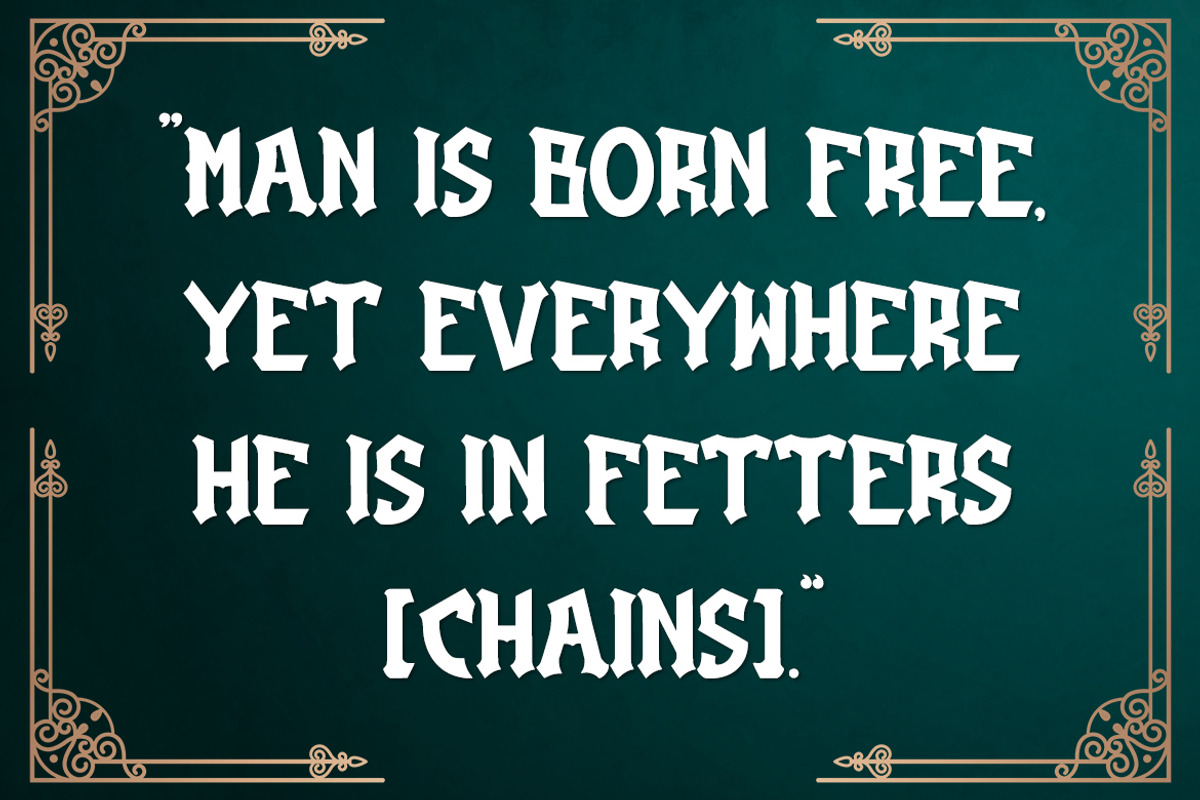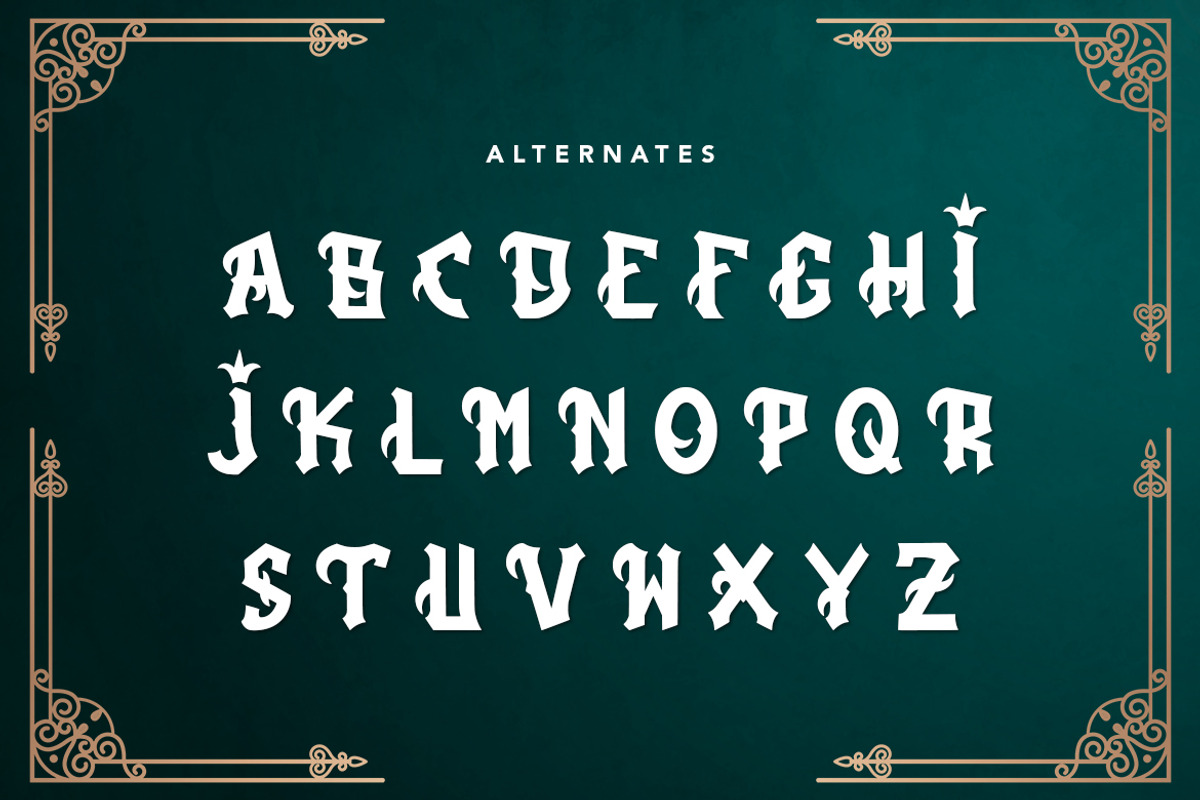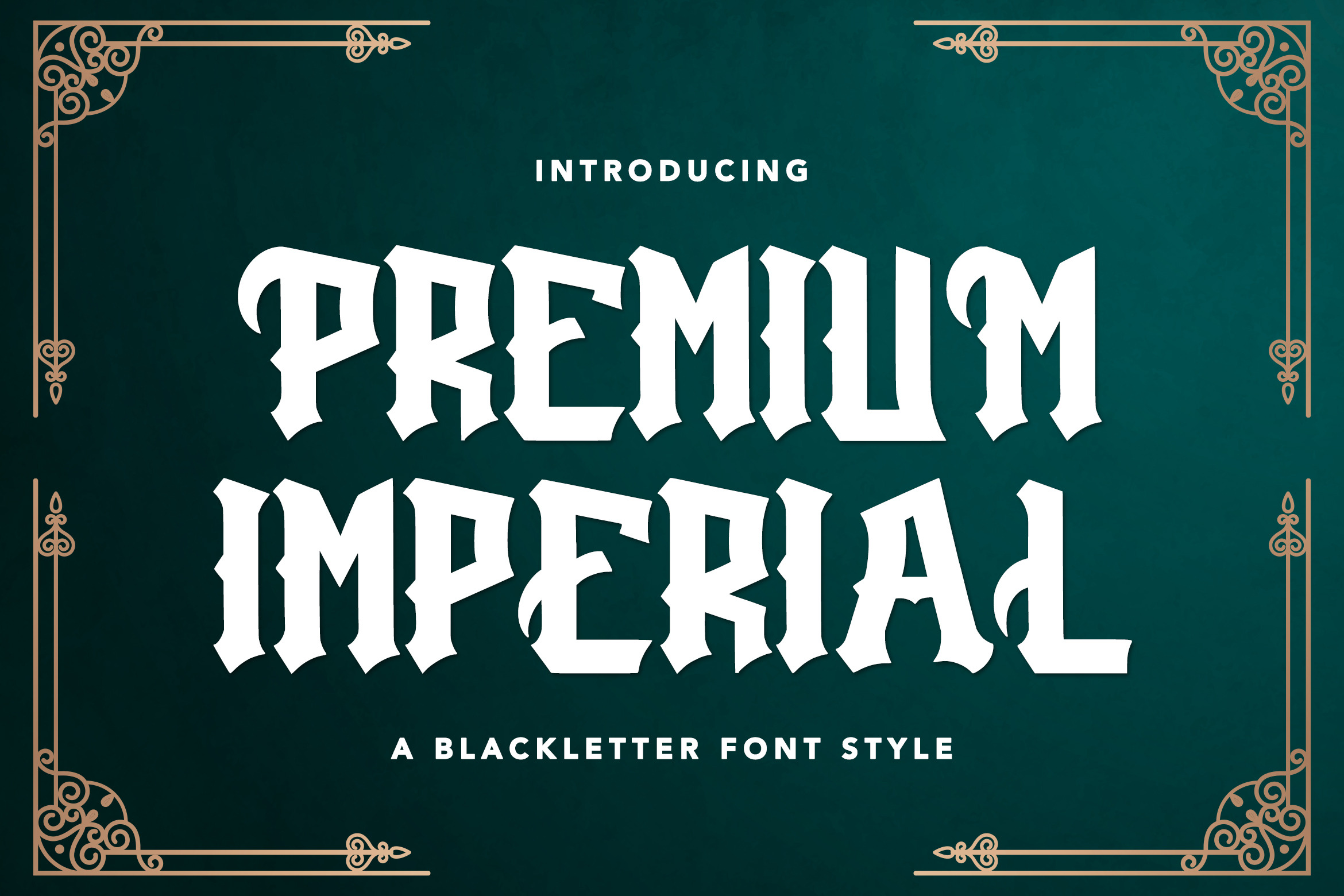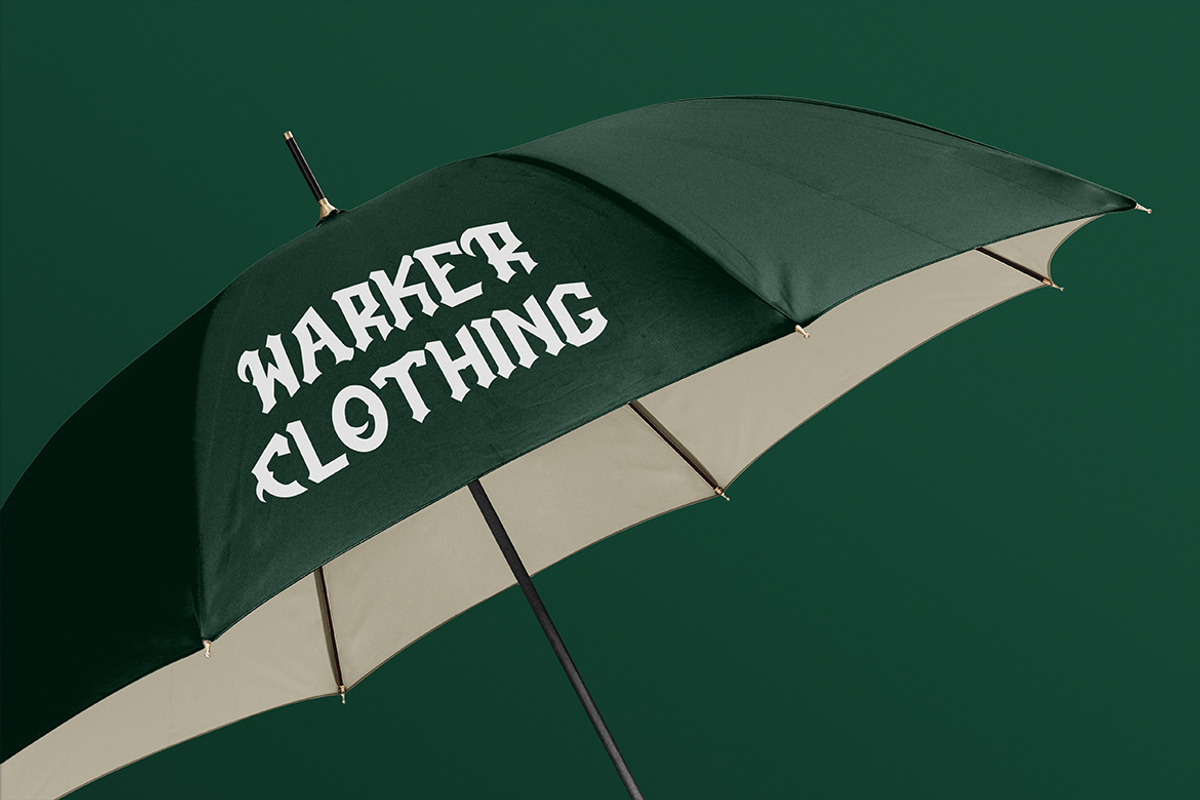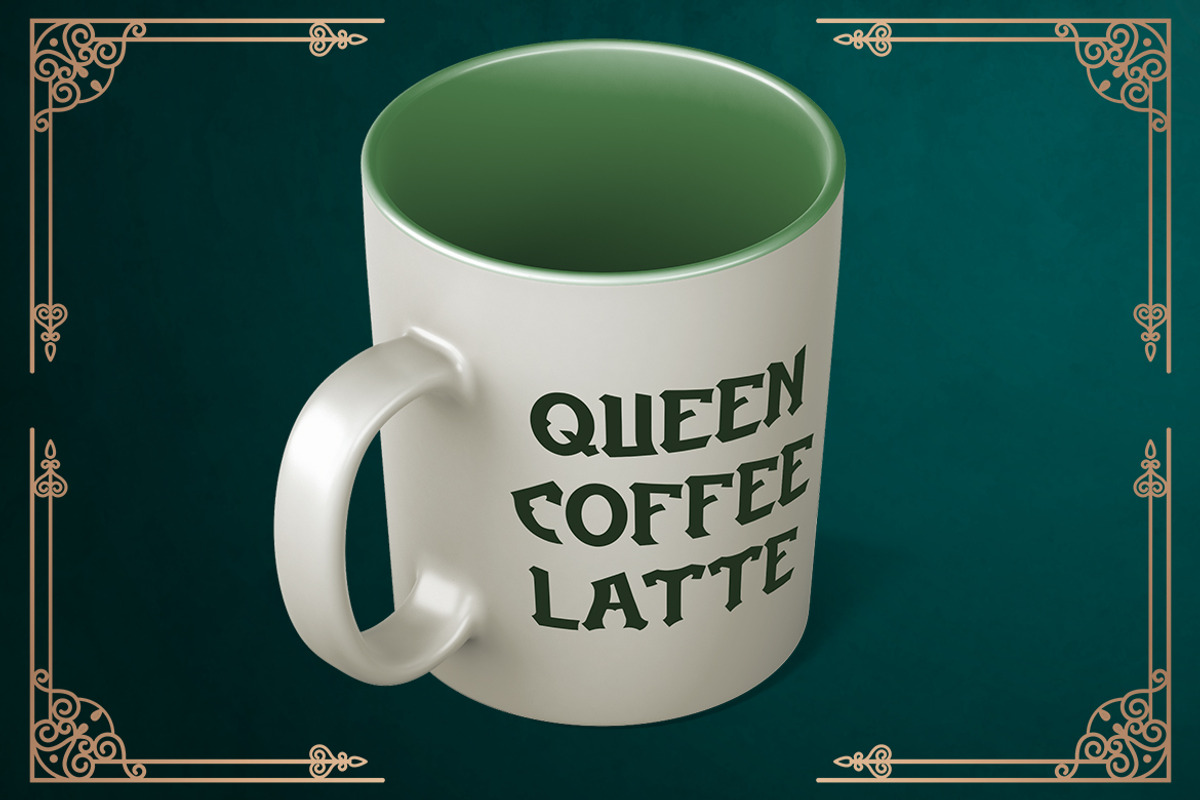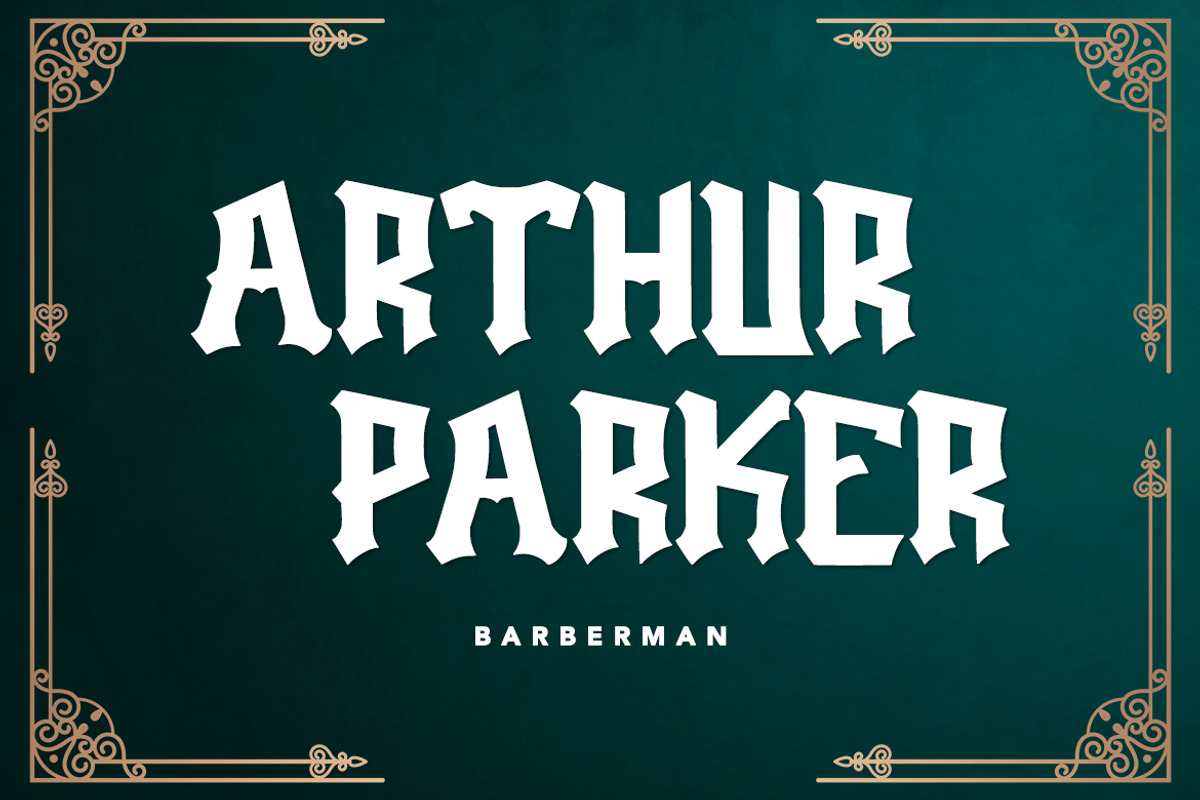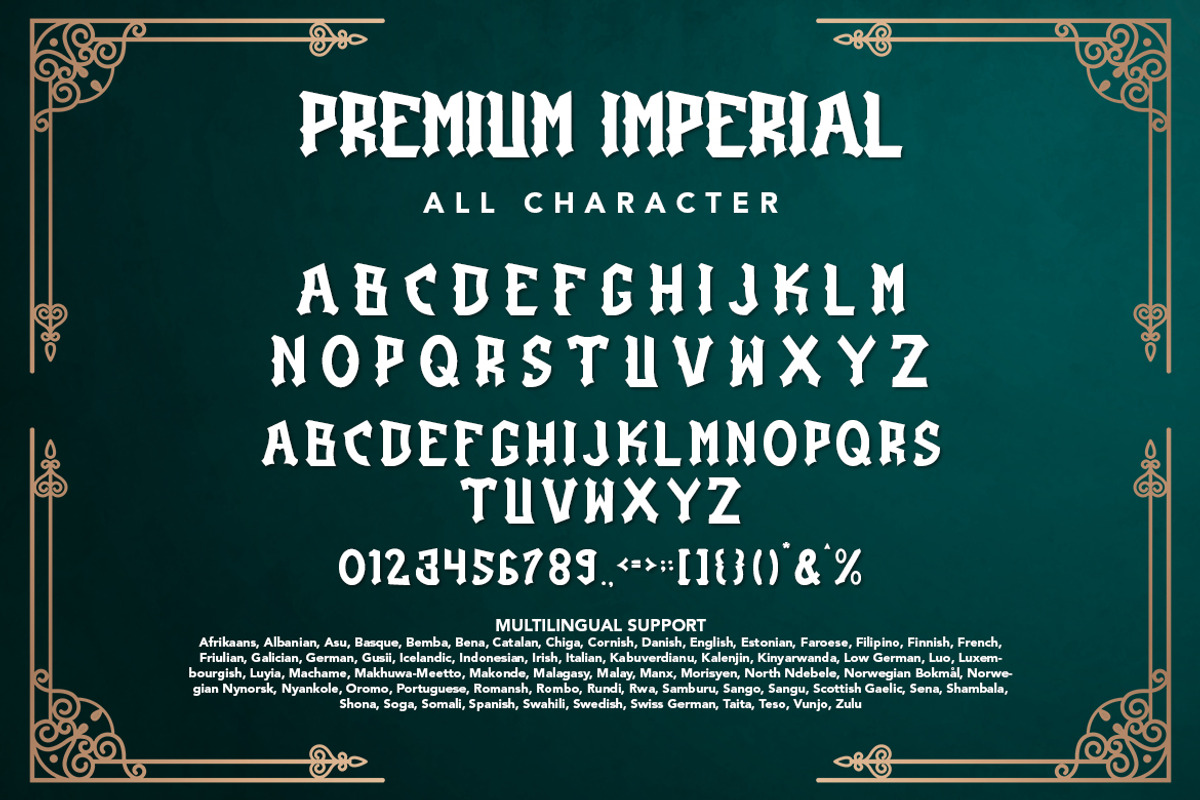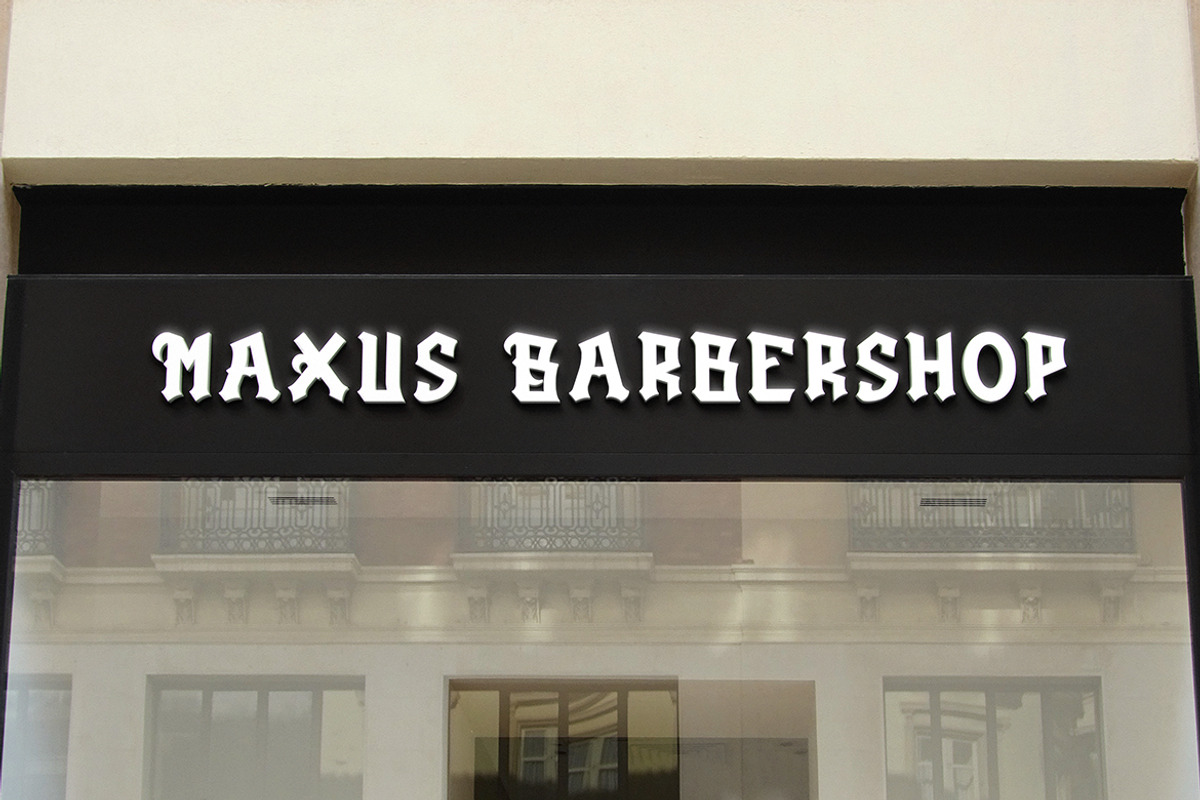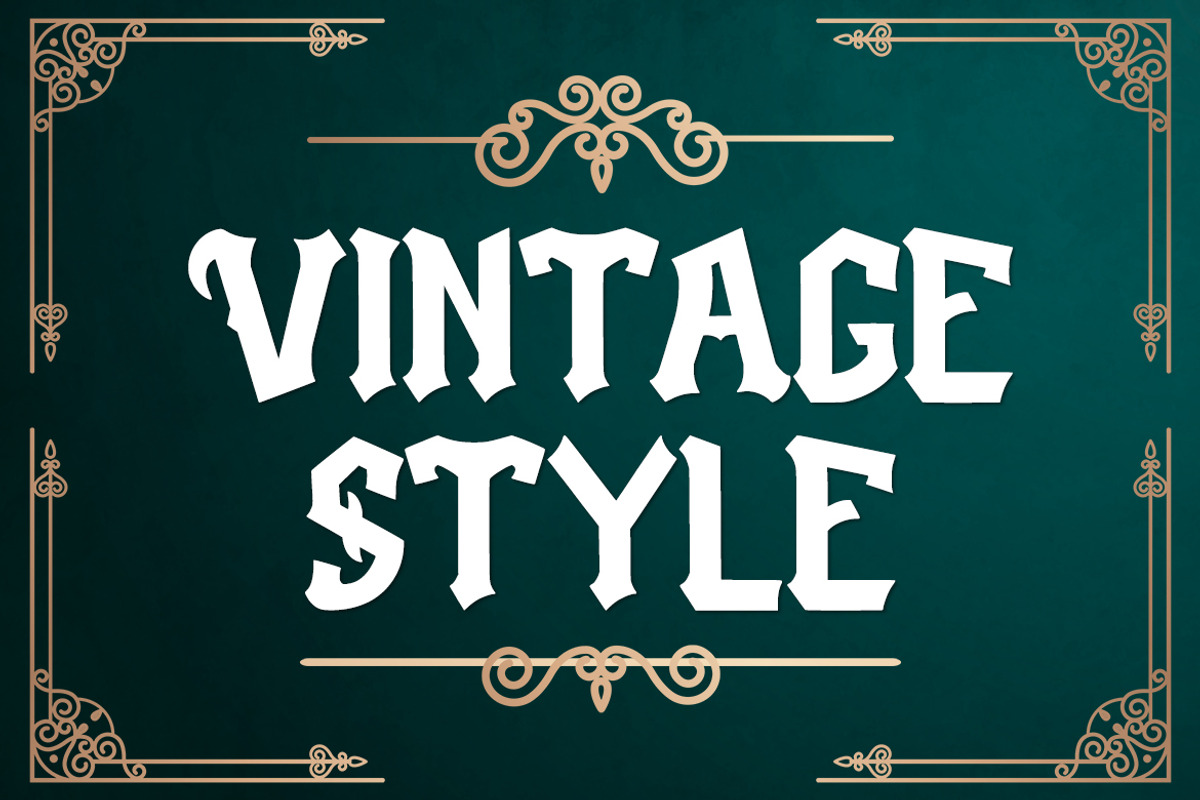
PremiumImperial - Blackletter Font
PremiumImperial - Blackletter Font contains a lowercase, uppercase, symbol, and also supports multi-language. There’s a lot of ligature in this font. PremiumImperial - Blackletter Font also comes with ligatures, stylistic alternates and many more. this font suitable for fashion, branding, catalog and other design that you want.